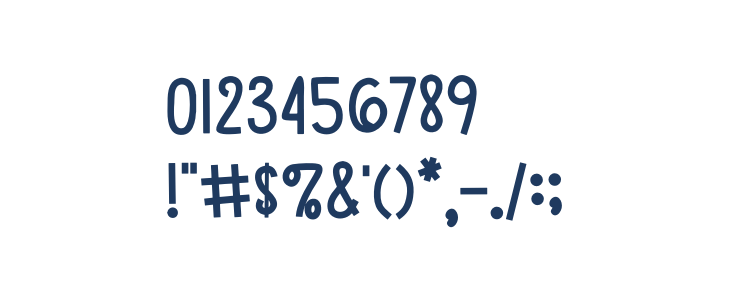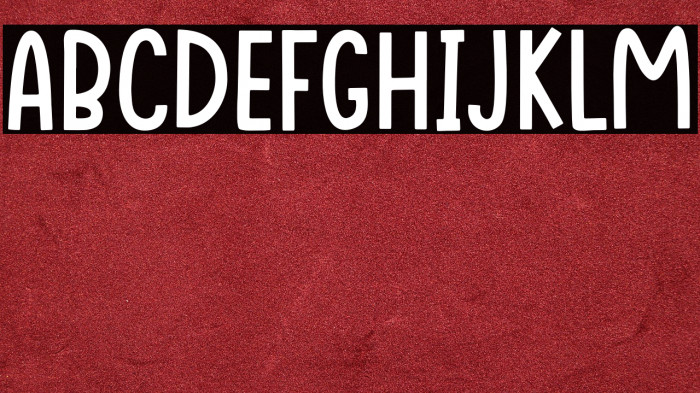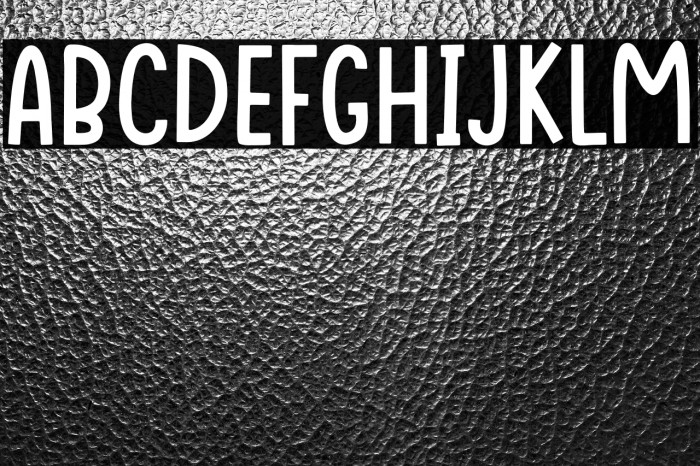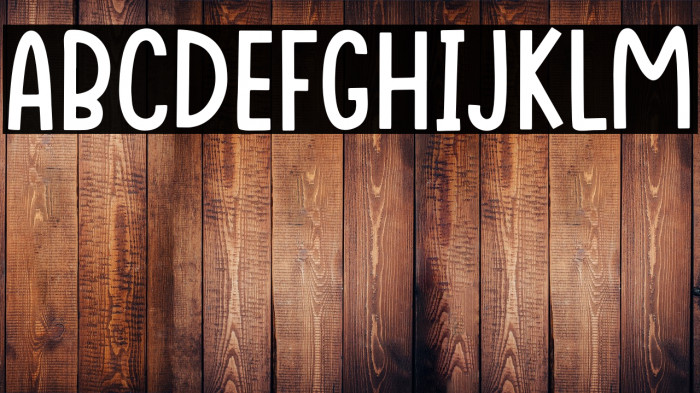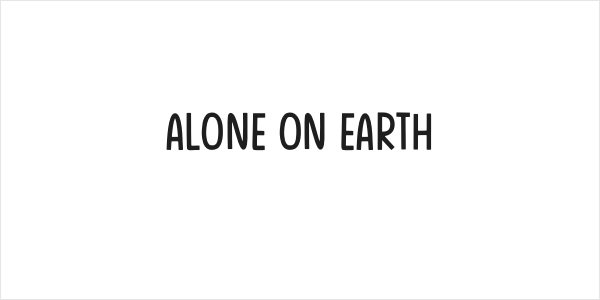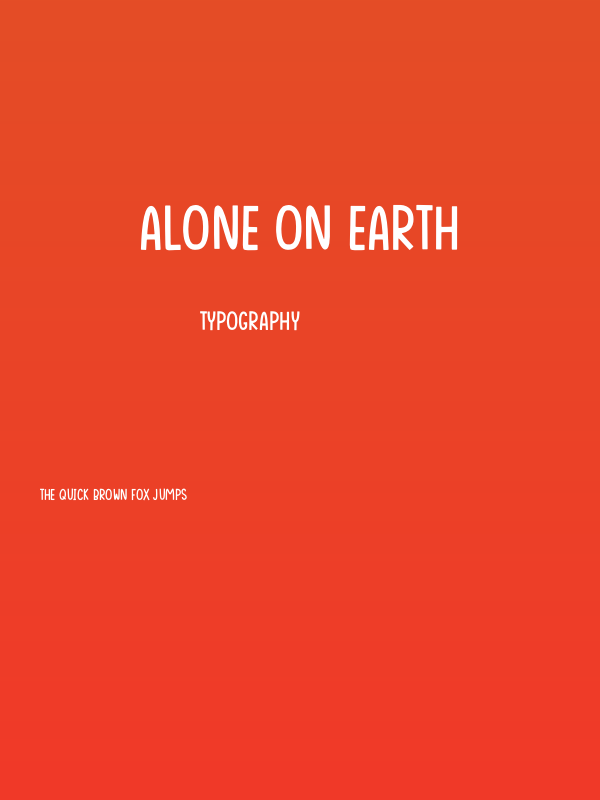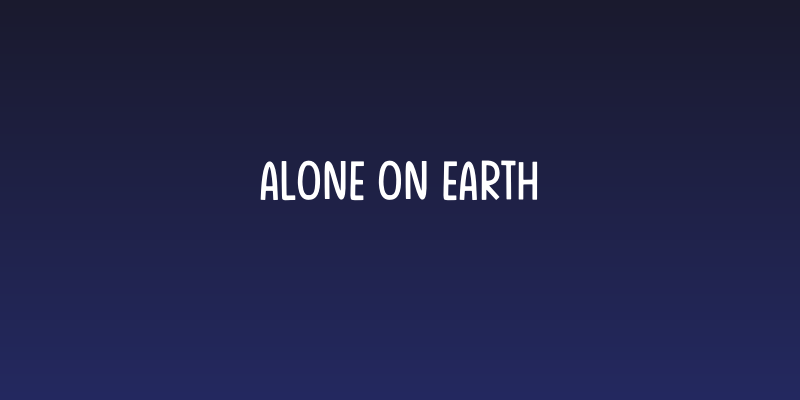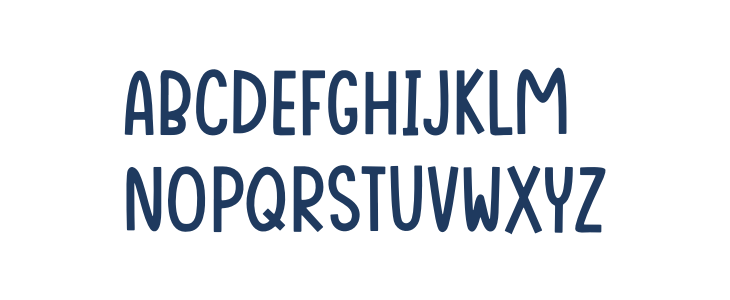
Alone On Earth Font
Alone On Earth Description
This font features a playful and casual handwritten style, characterized by its rounded edges and slightly irregular letterforms. The uppercase and lowercase letters maintain a consistent height, giving it a uniform appearance while still retaining a hand-drawn charm. The numbers and special characters follow the same style, ensuring a cohesive look across all text. The font's strokes are moderately thick, providing good readability and a friendly, approachable feel. Its informal nature makes it suitable for projects that aim to convey warmth and personality.
| Proposed Projects | Ideal for children's books, greeting cards, casual branding, and social media graphics. |